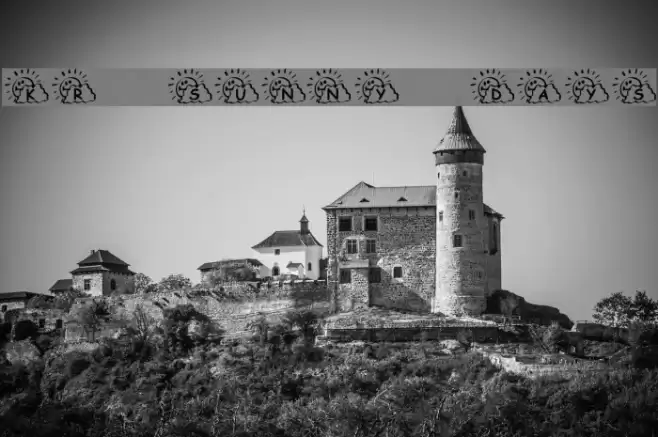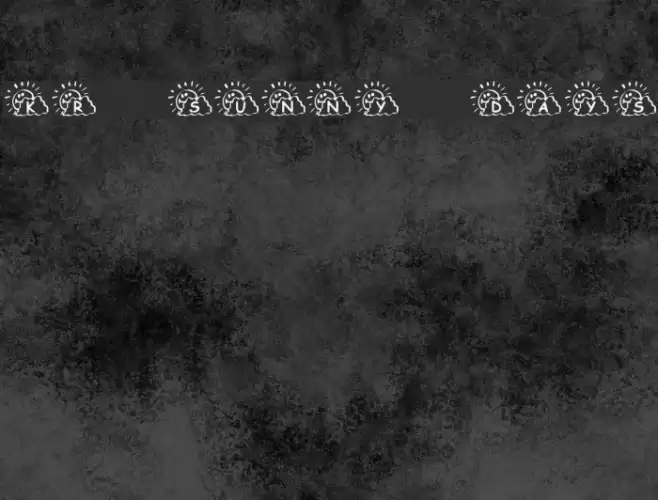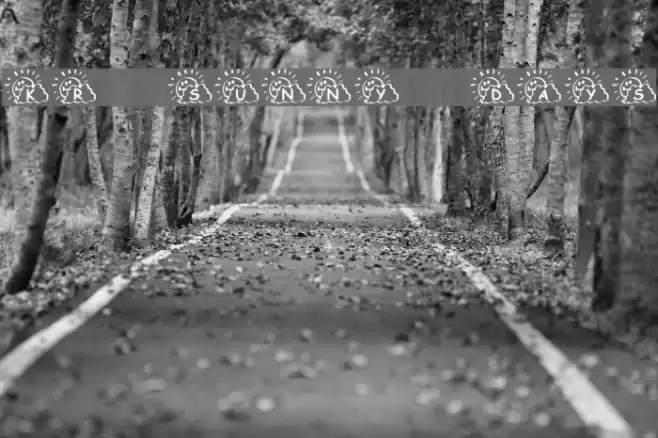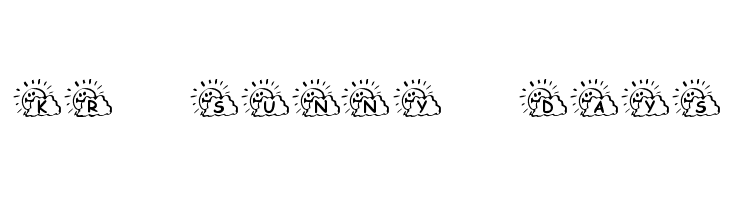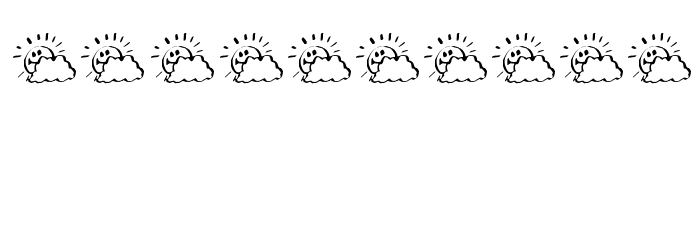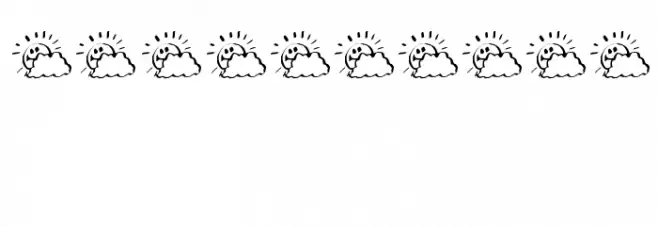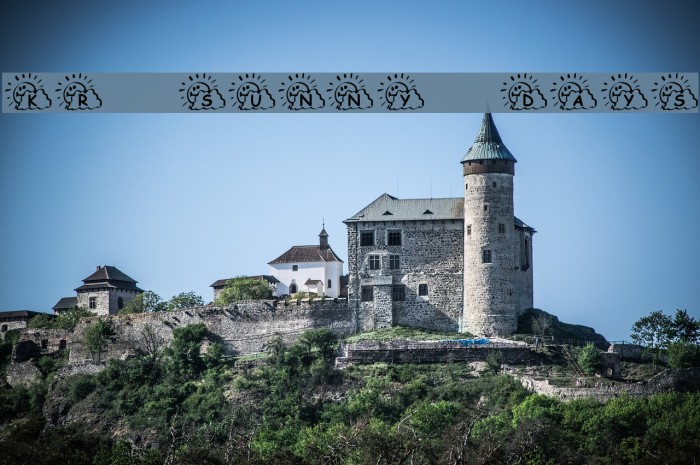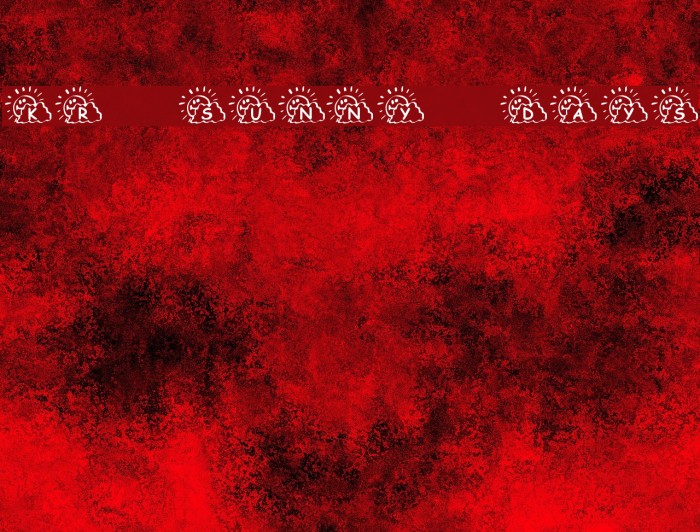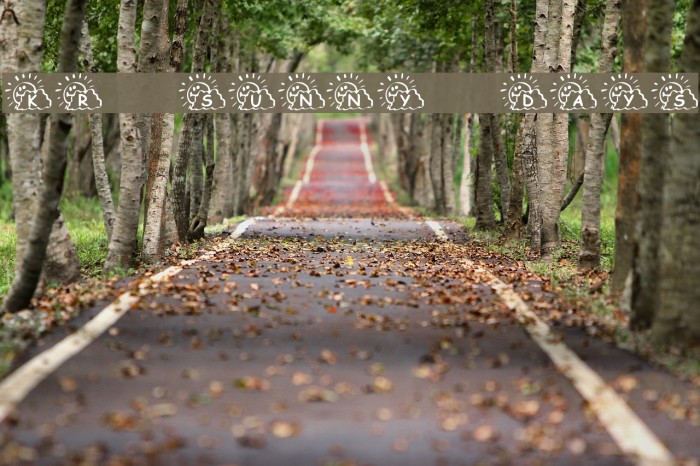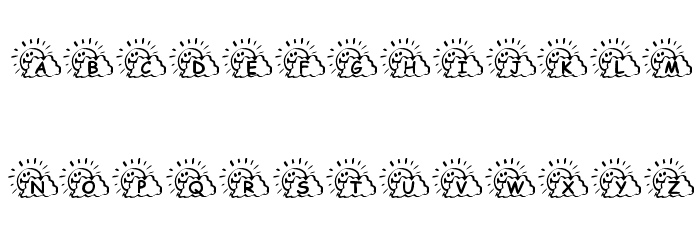
KR Sunny Days Font
This playful and whimsical font features each character enclosed within a cheerful sun and cloud motif. The letters are bold and cartoonish, with a hand-drawn style that adds to its charm. The sun's rays extend outward, creating a lively and dynamic appearance. This decorative font is perfect for projects that require a fun and lighthearted touch, such as children's books, greeting cards, or playful branding. The consistent theme of sunshine and clouds throughout the alphabet gives it a cohesive and thematic look.
A playful font with characters inside sun and cloud motifs, ideal for whimsical projects from Uncategorized fonts.
- Proposed Projects: Children's books, greeting cards, playful branding, party invitations.
- Overall Style: Whimsical